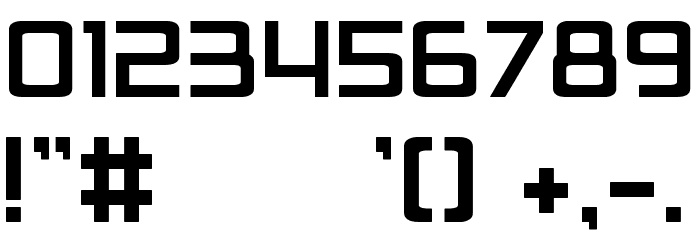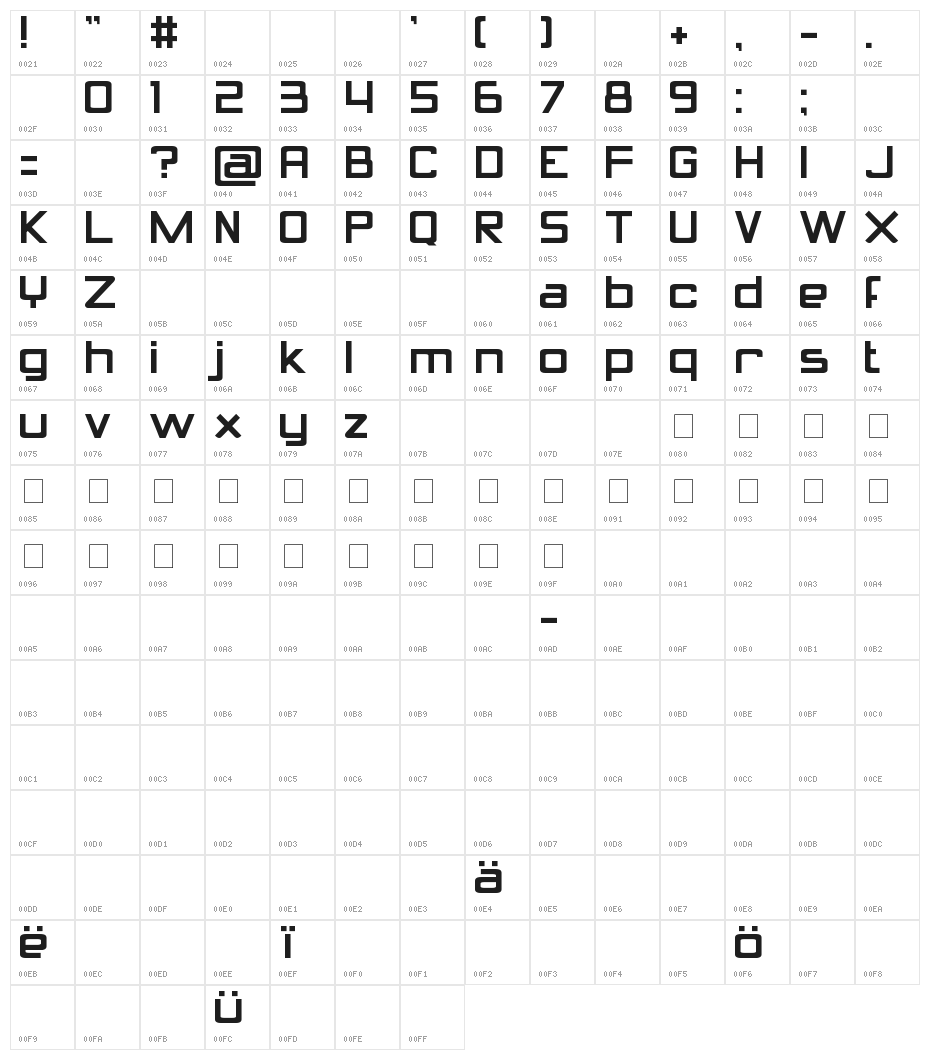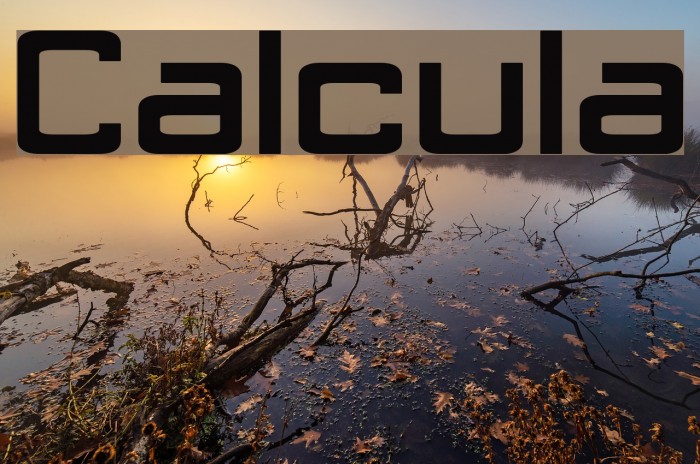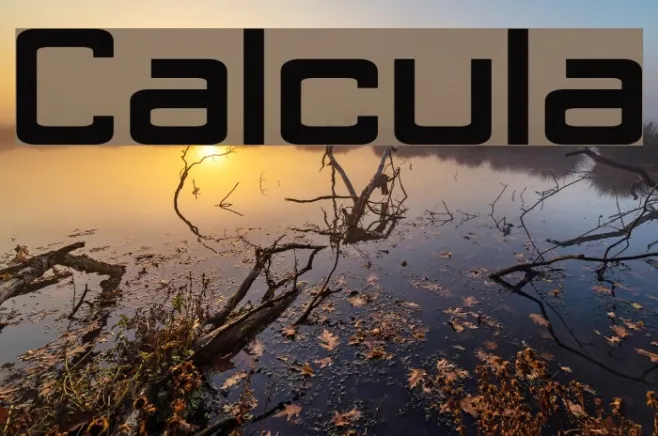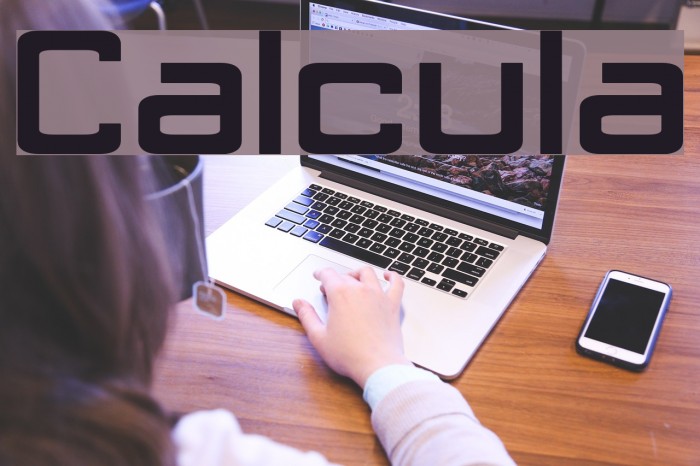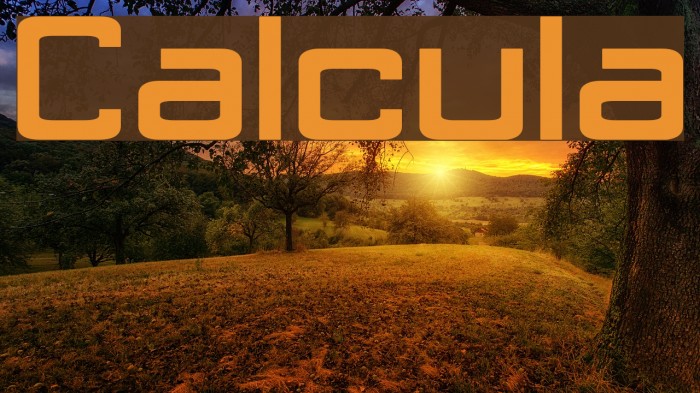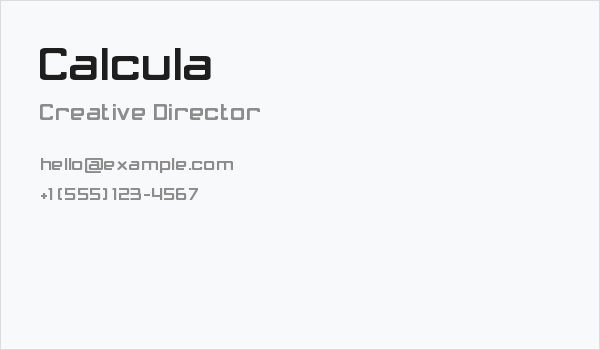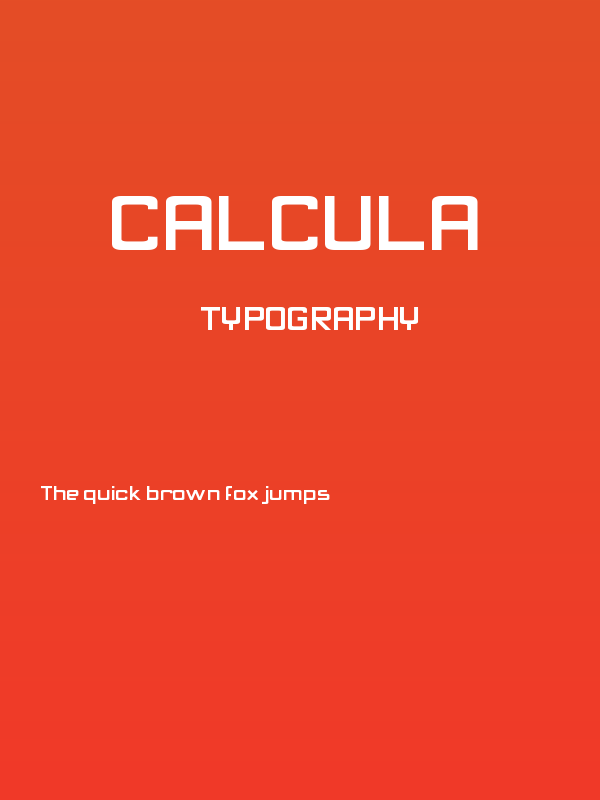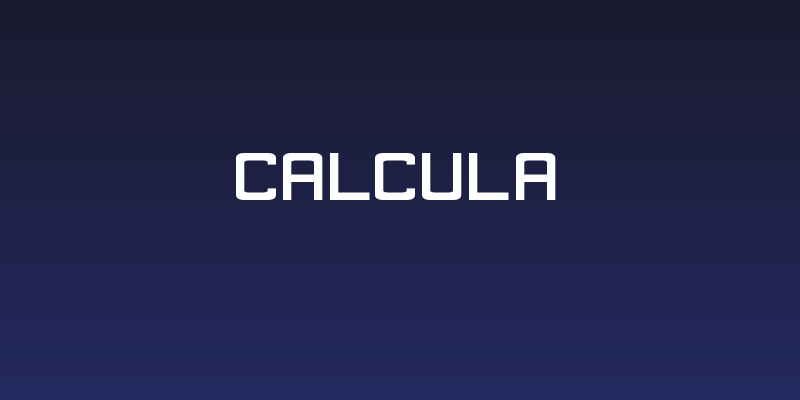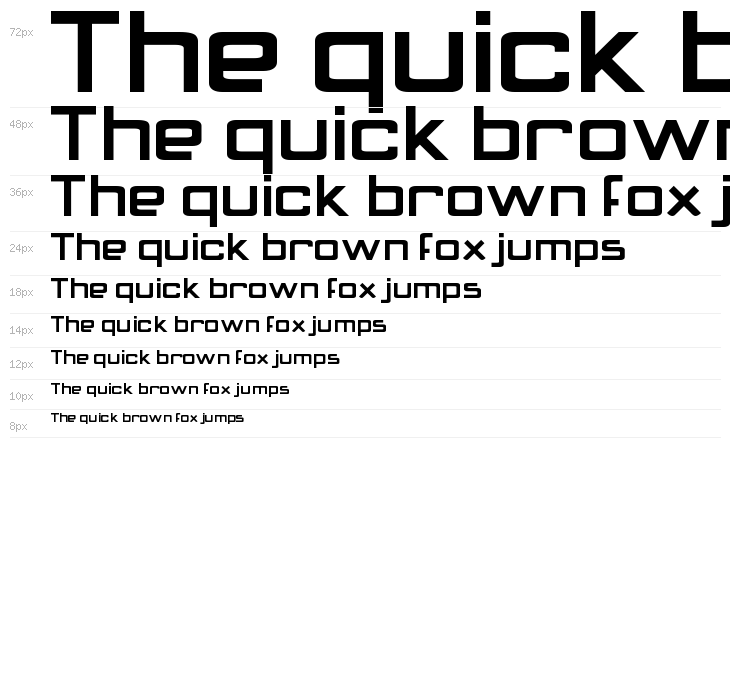
Calcula Font
Calcula Description
This font features a modern and geometric design, characterized by its clean lines and structured form. The uppercase letters are bold and uniform, with a squared-off appearance that conveys a sense of precision and clarity. The lowercase letters maintain a similar geometric style, offering a cohesive look across different text cases. Numbers are equally bold and structured, ensuring readability and consistency. Special characters are designed to match the overall aesthetic, with a focus on simplicity and functionality. The font's overall style is suitable for digital and print media, providing a contemporary and professional appearance.
| Use Case | Headlines, Logos, Digital Interfaces |
| Proposed Projects | Ideal for technology branding, digital interfaces, signage, and modern editorial design. |